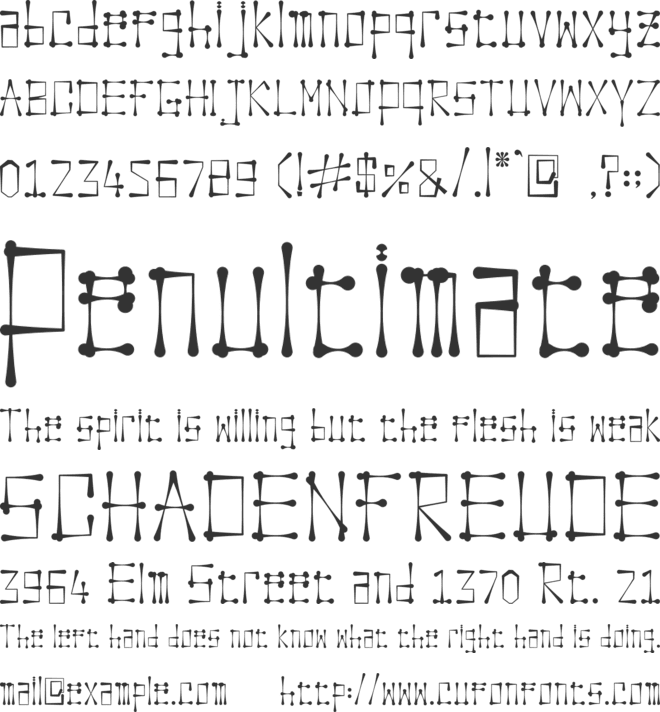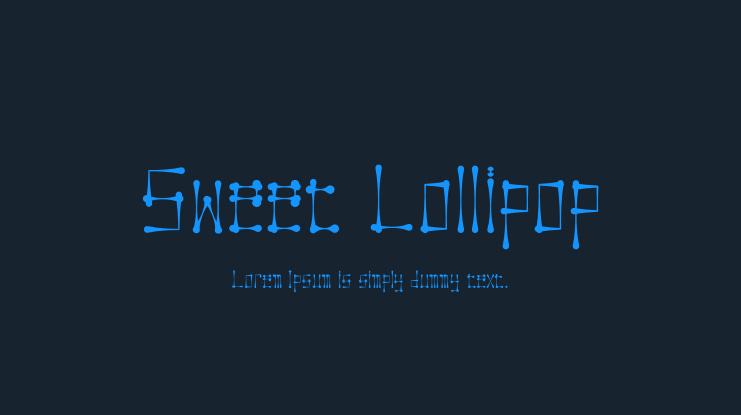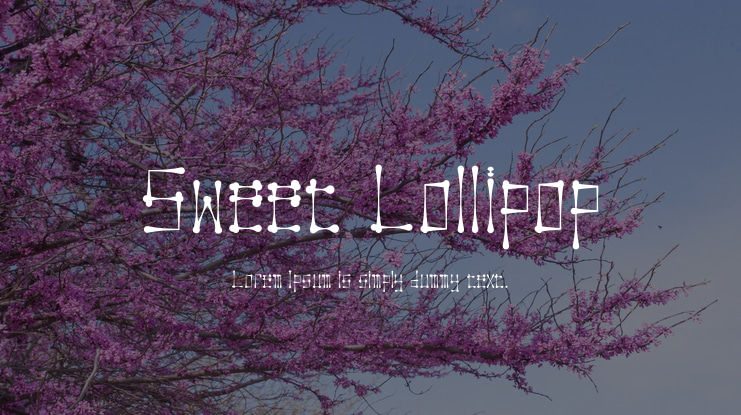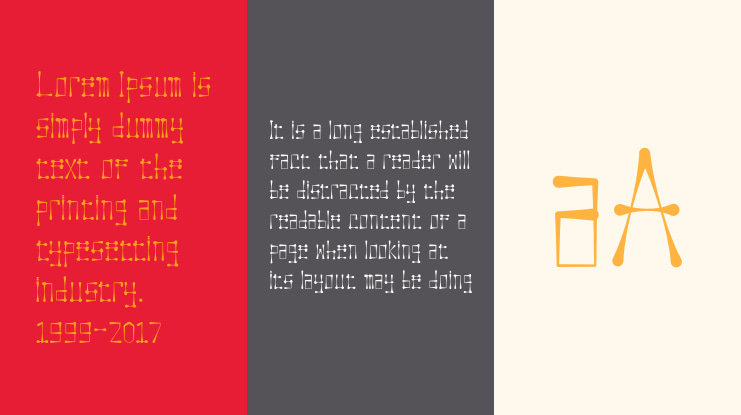
Sweet Lollipop Font
Muhammad Nashrul Aziz
Sweet Lollipop is a cool and unique decorative font. With wild and slightly atypical characters, this font can transform any of your creations into original pieces of art! Use it for recipe books, birthday cards, and anything else that needs a playful touch!